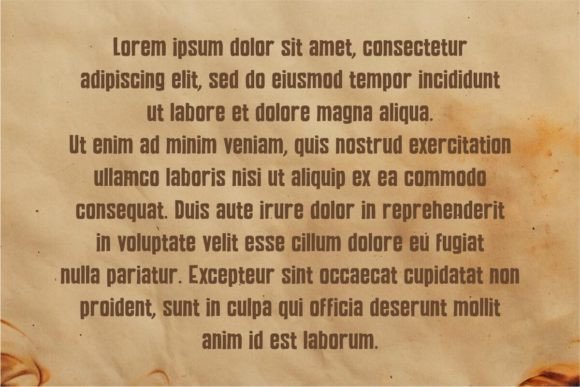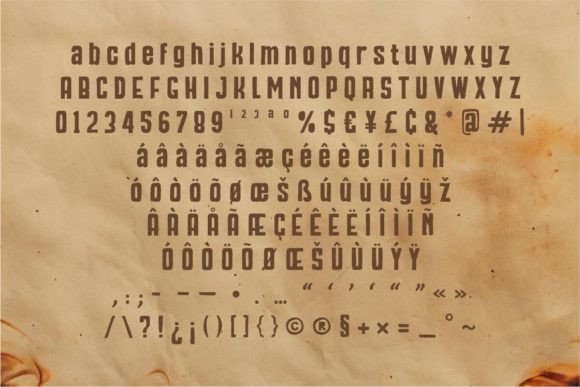
The Magical World of AERETRO Font
I’ll never forget the struggle I faced while working on a project for a whimsical children’s book. My client wanted a font that would transport their readers to a magical world, but I was stuck in a design rut. That’s when I stumbled upon AERETRO, an incredibly cool and unique display font that has a modern yet whimsical style. It was love at first sight! 💫
In this article, I’ll share my experience with AERETRO, its features, and how to make the most of it in your designs. Whether you’re a designer, crafter, or creative hobbyist, you’ll learn how to unlock the full potential of this enchanting font.
An Honest Review of AERETRO
- Unique and quirky design that adds a touch of magic to any project ✅
- Modern and clean lines that make it perfect for display text ✨
- Extensive OpenType features, including glyphs and stylistic alternates 🎨
While AERETRO is an amazing font, there are a few things to keep in mind:
- It may not be the best choice for body text due to its display-focused design ⚠️
- Some characters may require manual kerning for optimal spacing 🤔
The Story Behind AERETRO
AERETRO was designed by a team of creatives who wanted to create a font that would transport people to a magical world. Inspired by the beauty of retro-futurism and the whimsy of childhood imagination, AERETRO was born. The design team poured their hearts into crafting a font that would be both modern and timeless, with a unique personality that would shine through in any design.
| Font Name | Aeretro Font |
| Author | Eko Kurniawan |
Q: Is AERETRO suitable for body text?
A: While AERETRO is an amazing font, it’s primarily designed for display text. For body text, you may want to choose a font with better readability.